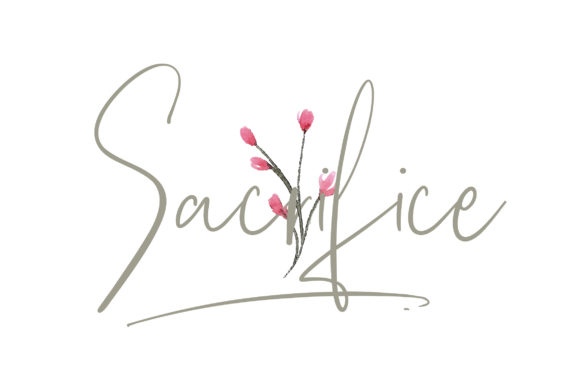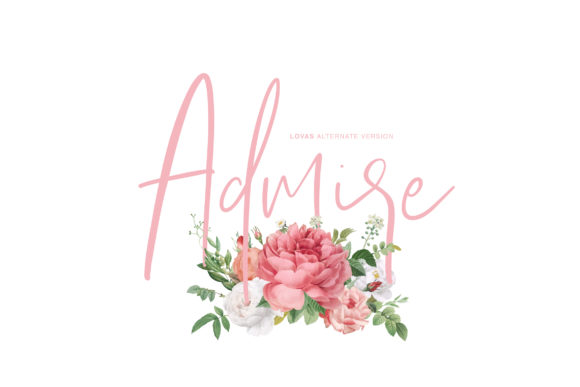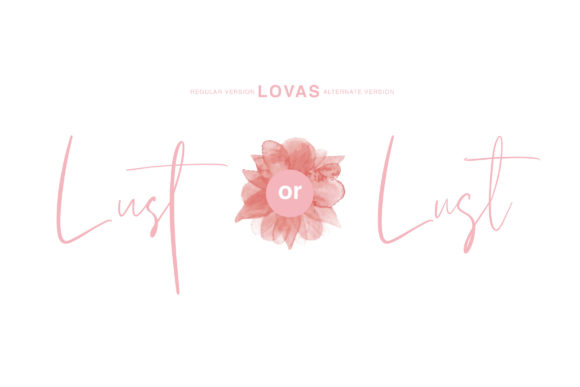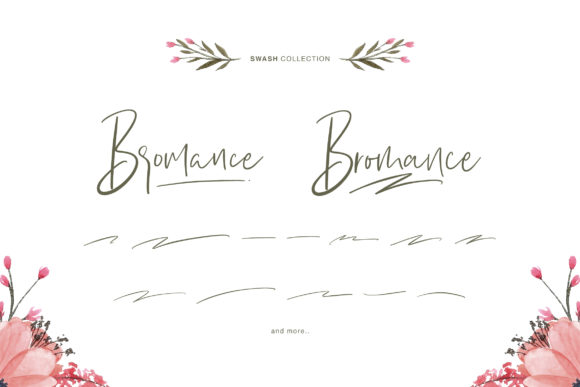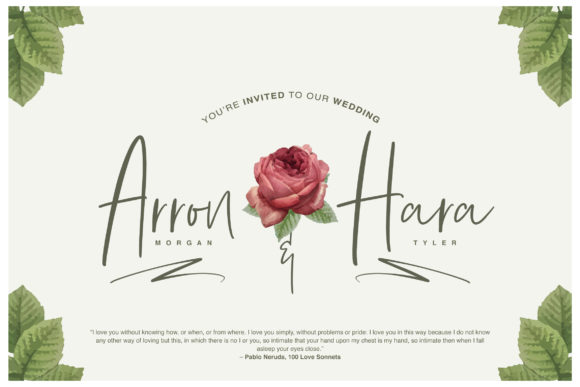
Introduction to Lovas Script Font
Lovas is a romantic and light handwritten font, featuring lovely lettering.
Use it to add an adorable feel to any crafts idea .
Key Features of Lovas Script Font